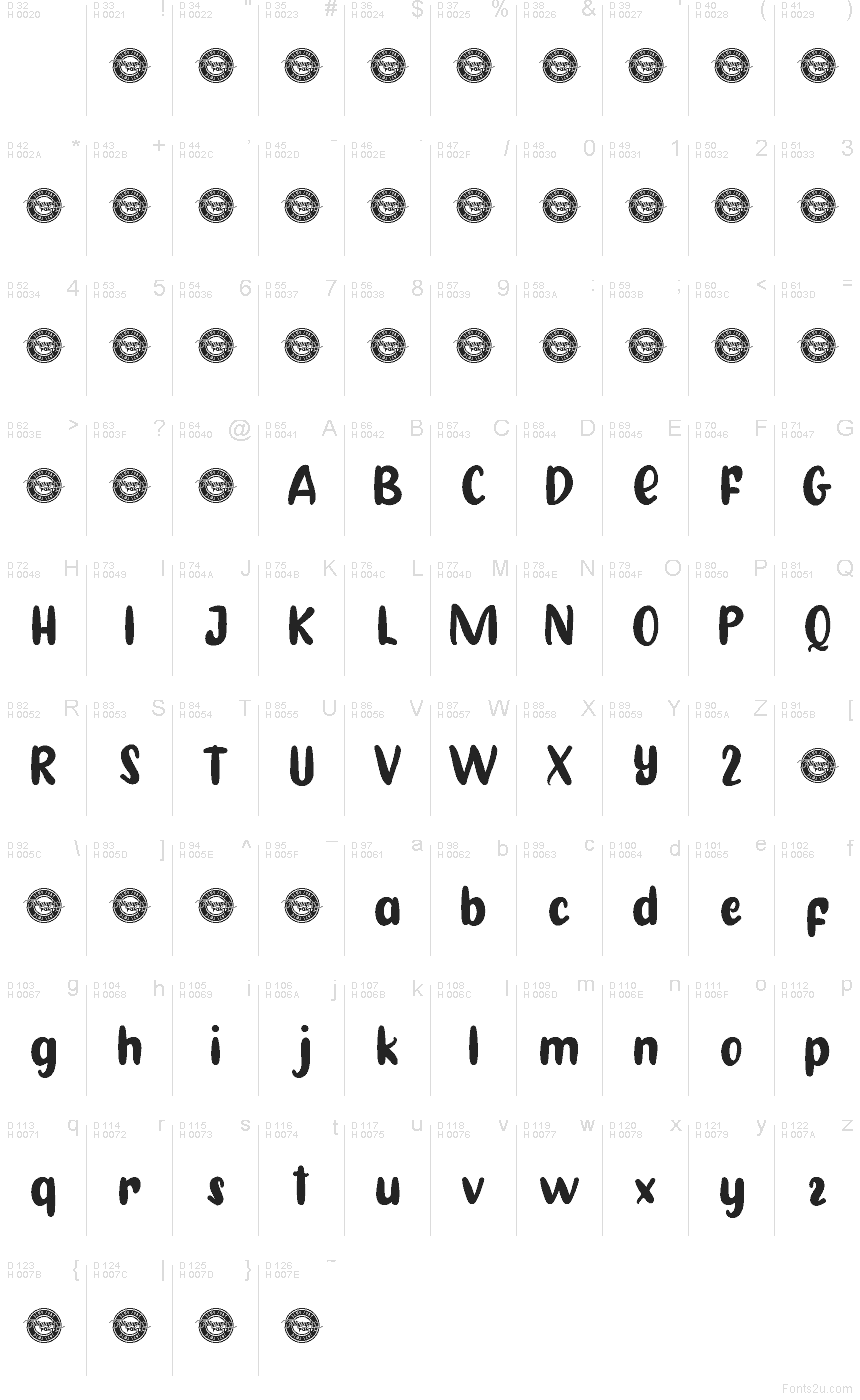
Riceberry by CalligraphyFonts.net is a free cartoon display font with tall, soft-edged letters and an easy hand-drawn wobble. Its changing stroke widths, pinched joins, and uneven proportions give the alphabet a lively silhouette, with narrow forms rubbing shoulders against broad, rounded ones.
It can turn a food label or children's event poster into part of the illustration rather than simple text. The plump curves also suit bakery packaging and playful merchandise. In publishing, it has the right comic warmth for activity-book headings and lighthearted cover lettering.